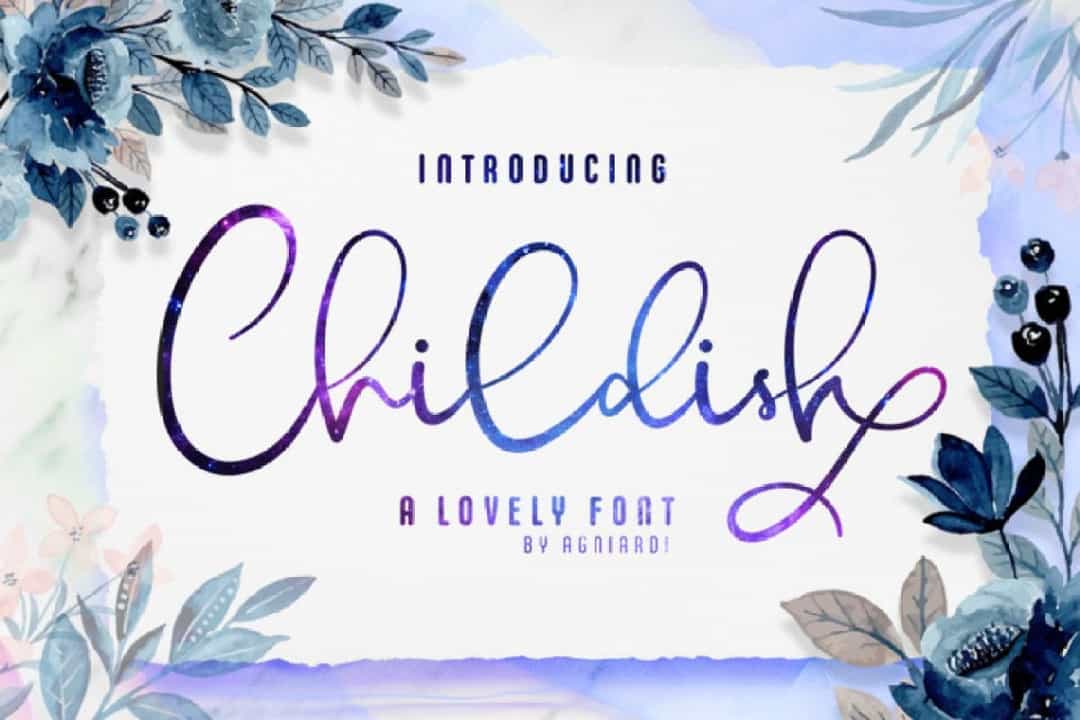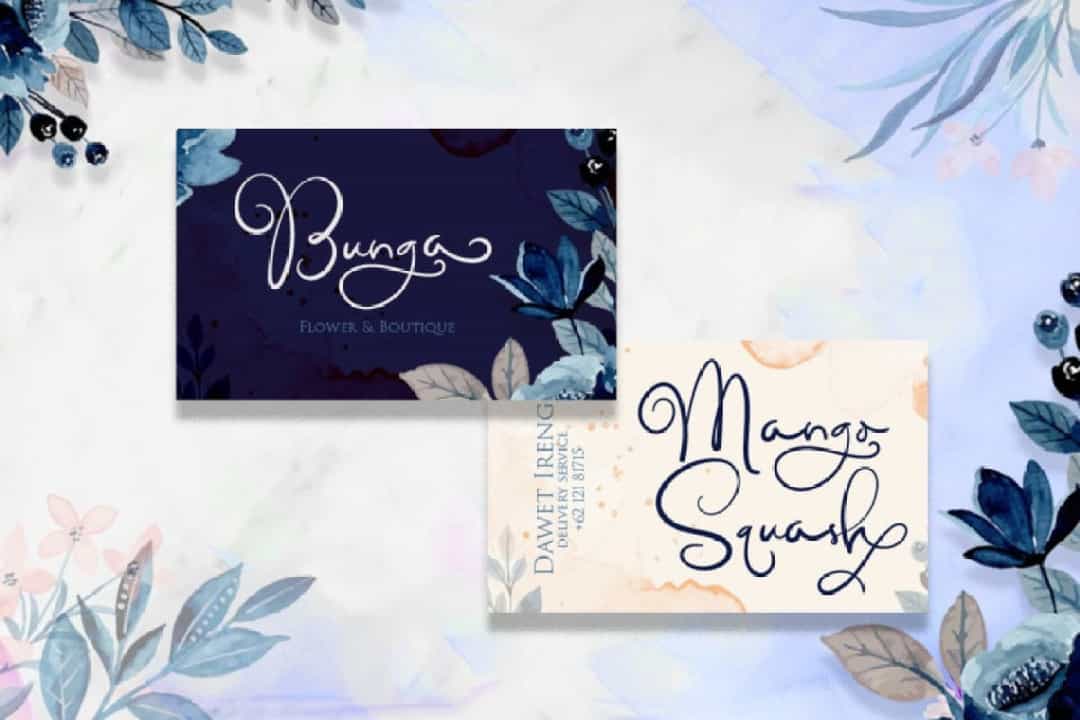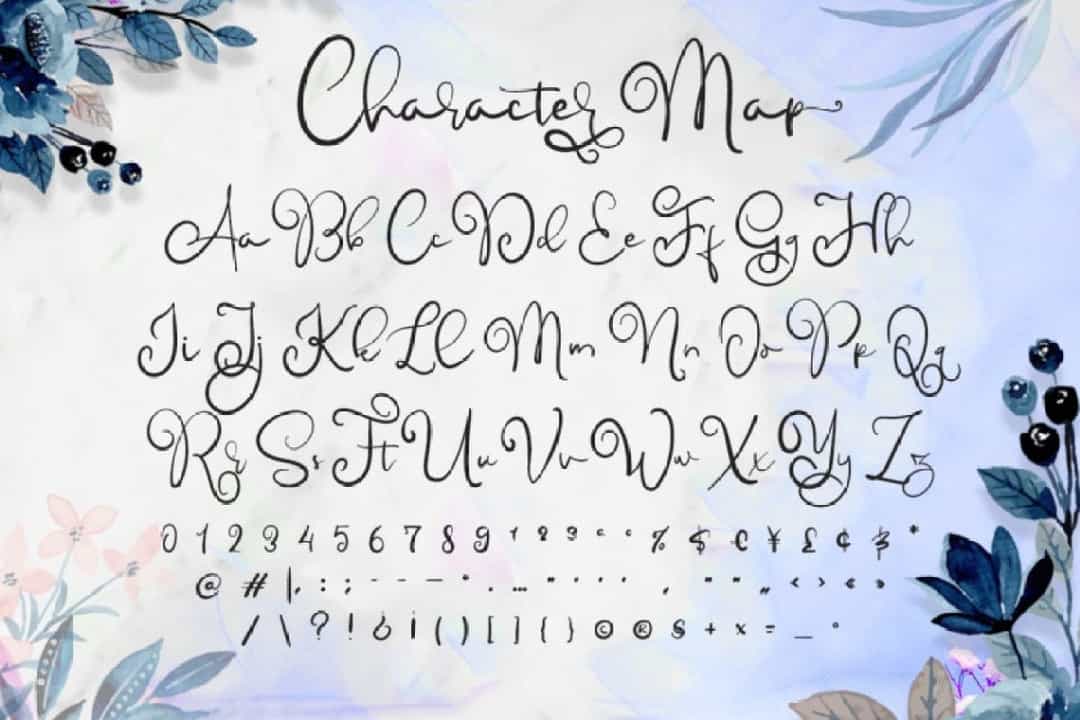
It is a playful script font and it has a lot of swash italics: almost every lowercase letter has 3 to 5 variations! Great for T-shirt designs, mug designs or just for fun Childish gives you endless options and opportunities!